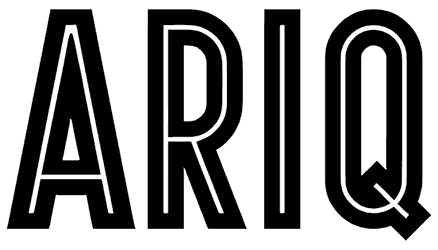
Ariq Font
Picking a typeface for typography that evokes the future is very thrilling. Ariq is exactly what can excite our creativity to push limitations and put our foot beyond, break the mold to portray the futuristic face.
This fresh sans-serif font with its thick and outlined letterforms depicts both modern and retro vibes simultaneously to attract regular attention. Although that is only available in uppercase, it can do tricks in designing any posters, product packaging, headers, and more.